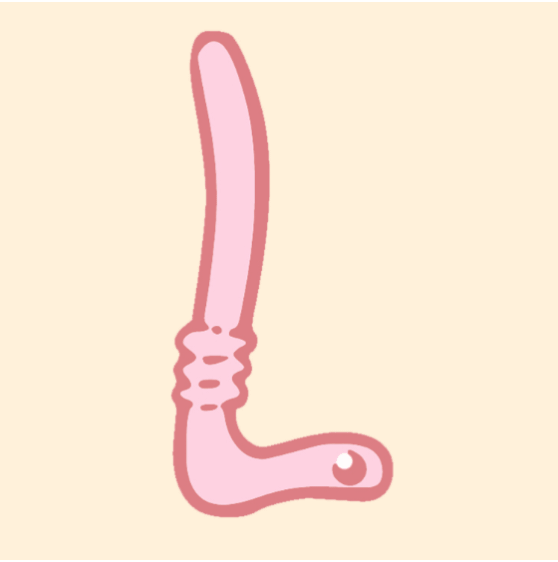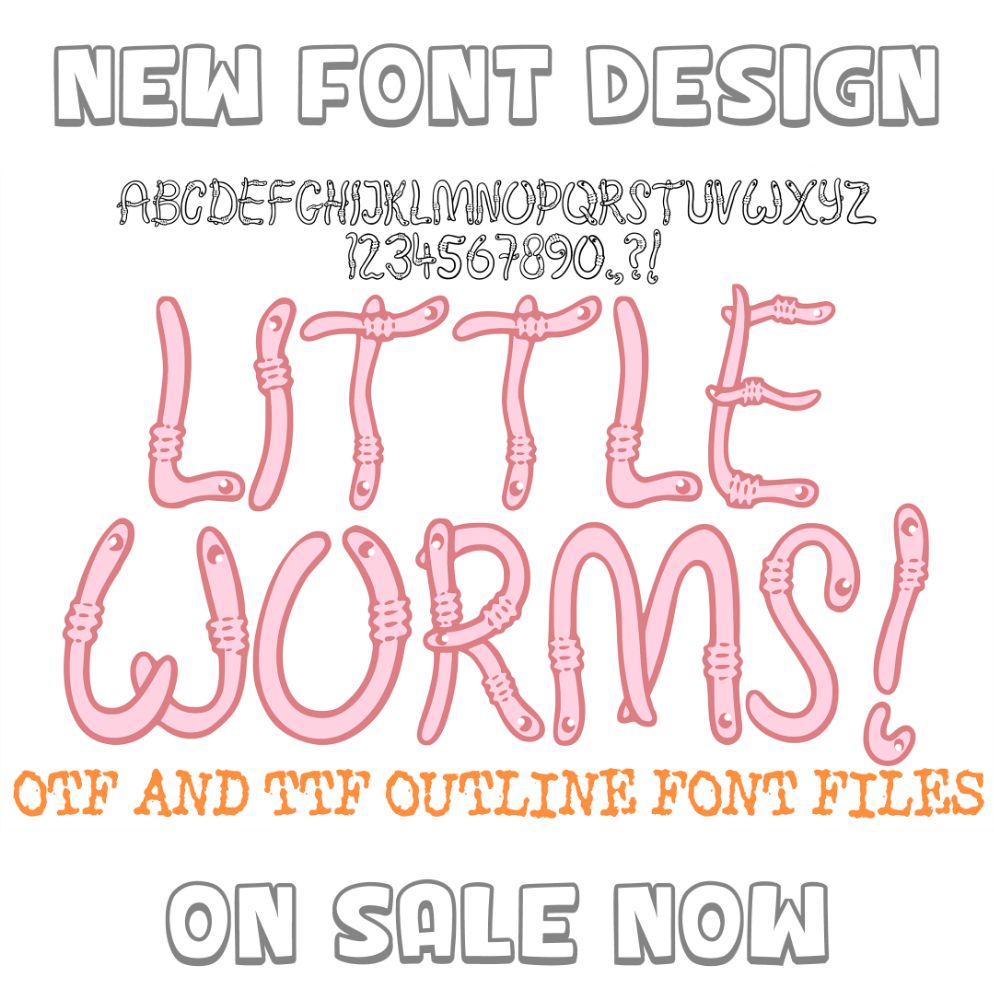
Wiggly Worms Font Design
Little Worms Font Hand Drawn Comic Smakes Wiggly Lettering ABC OTF Type by Squeeb Creative
Little Worms font. Inspired by the crazy amount of worms we have in the garden at the moment. Expect a ladybird one soon, maybe, as they seem to be at record amounts already too!!